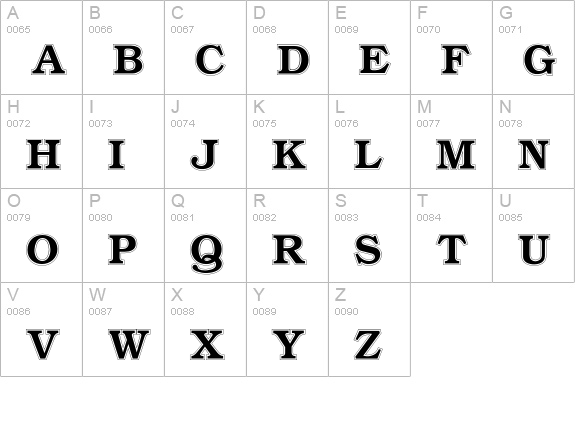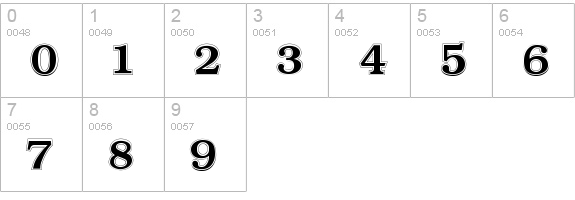
BookmanContour Font Details
BookmanContour is a stylish and elegant font that combines classic serif elements with a modern touch. Its unique contour design adds a dynamic and eye-catching appeal to any text or design project. The strong, bold strokes and intricate details of BookmanContour make it ideal for headlines, titles, and branding materials. What sets BookmanContour apart is its versatility and ability to work well in both print and digital mediums. Whether you're designing a poster, creating a logo, or crafting a website, this font is sure to make a statement and leave a lasting impression. Best of all, BookmanContour is available for free download at FontsMarket.com. Now you can elevate your design projects with this exceptional font without any cost. Don't miss out on this opportunity to enhance your work with the timeless beauty of BookmanContour.